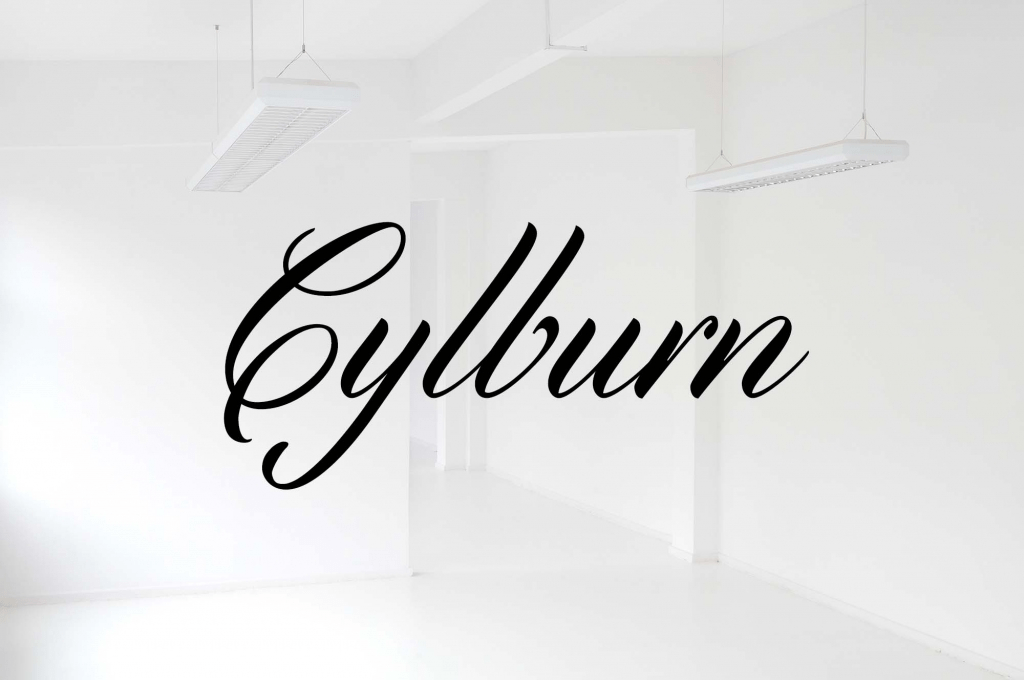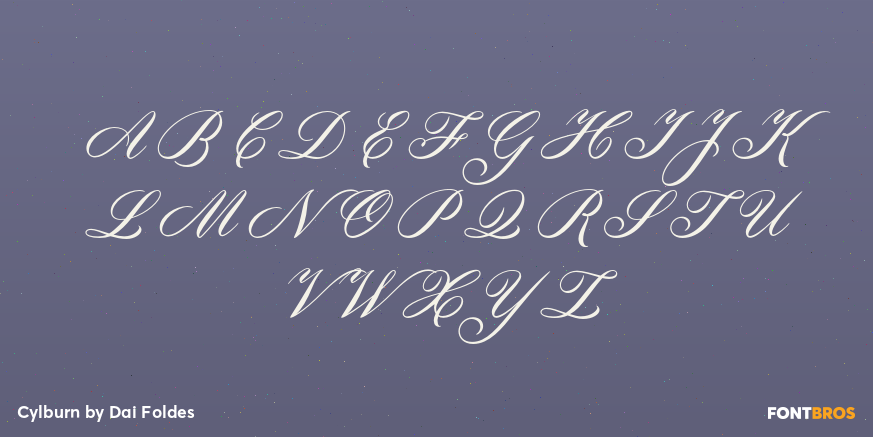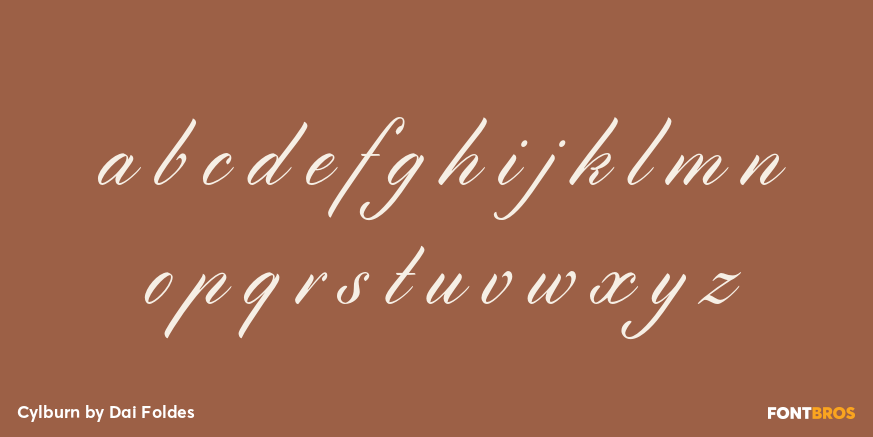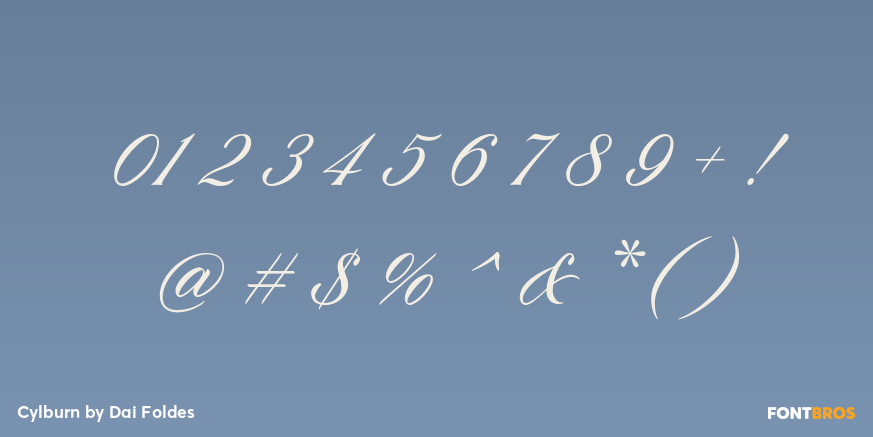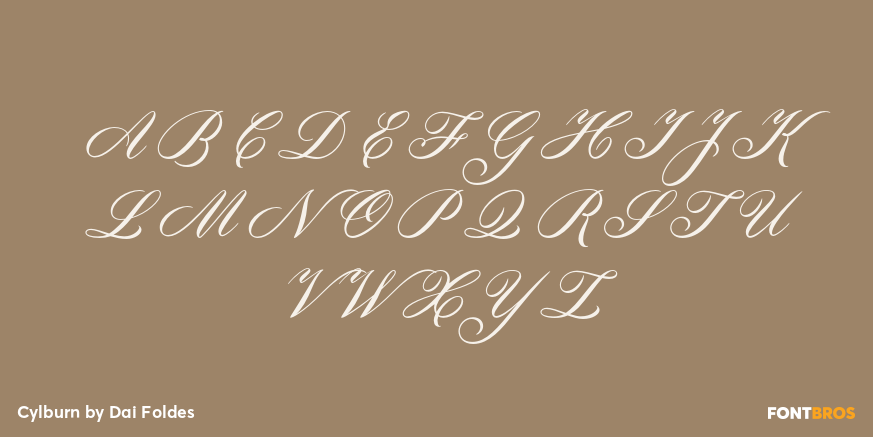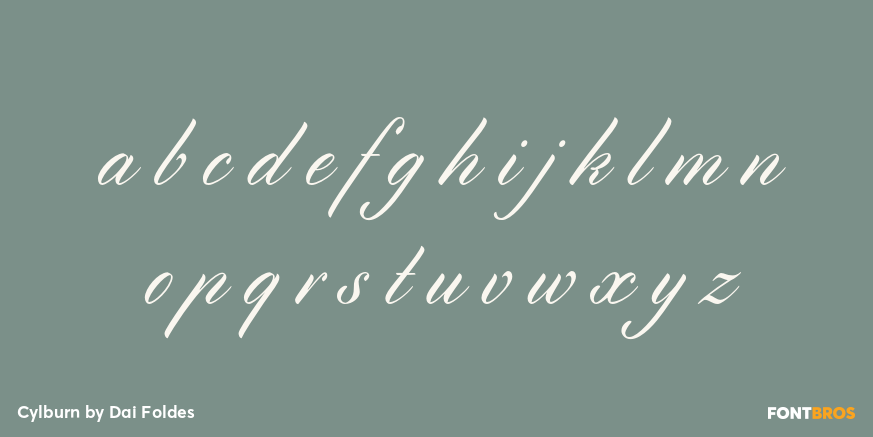
Cylburn
Font Family by Dai Foldes
Cylburn is a semi-connected script structurally based on Roundhand but written with a pointed brush and restrained tension that separate it from its traditional roots.